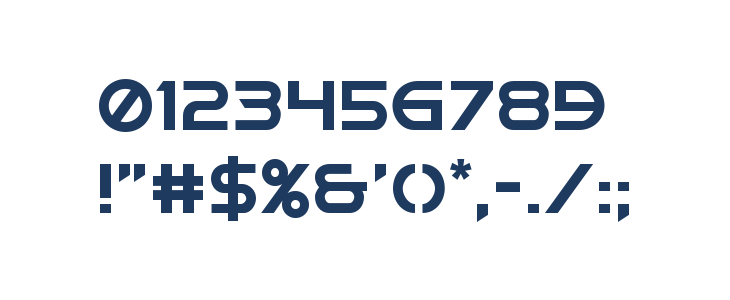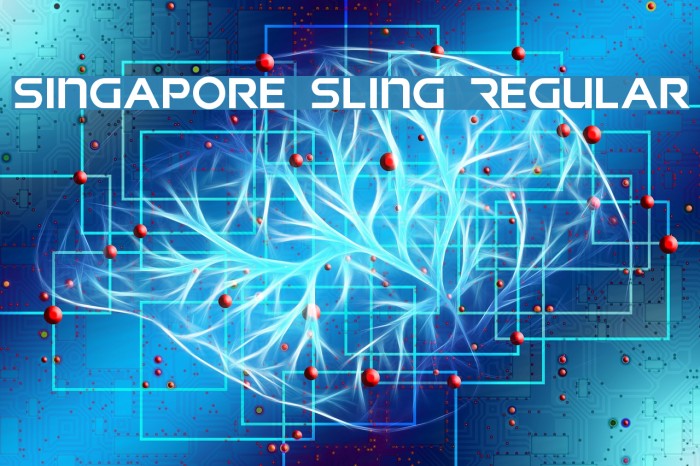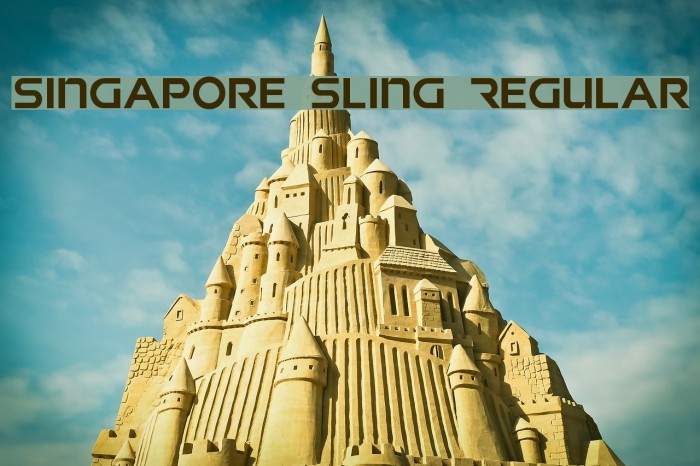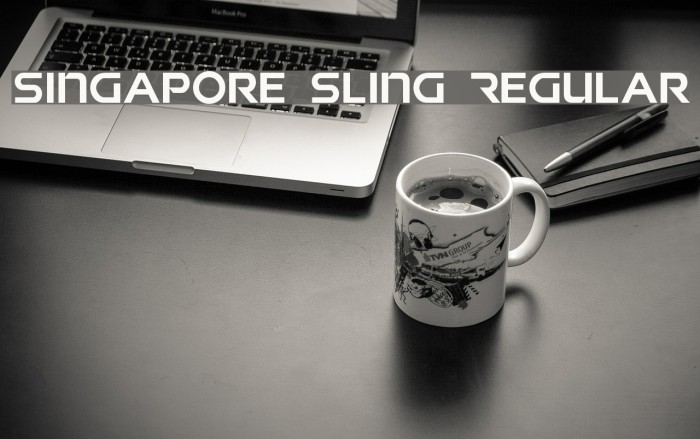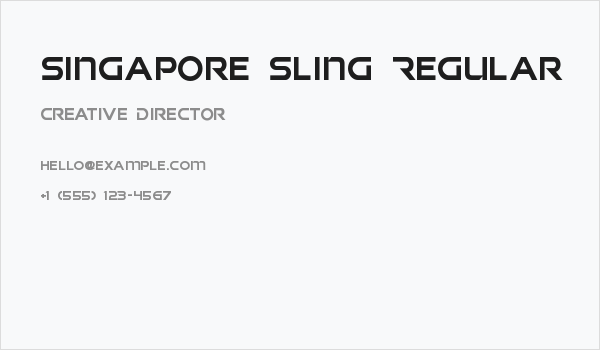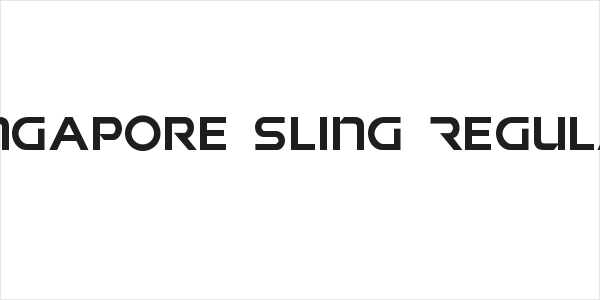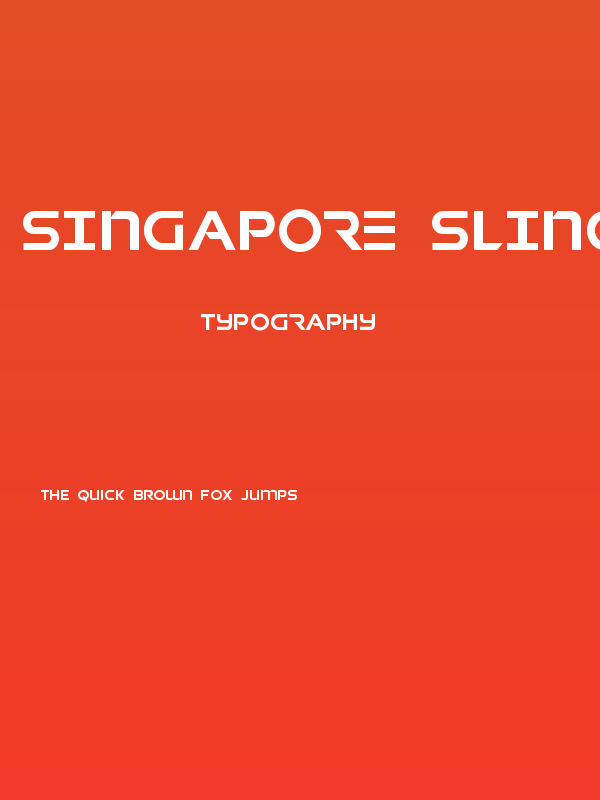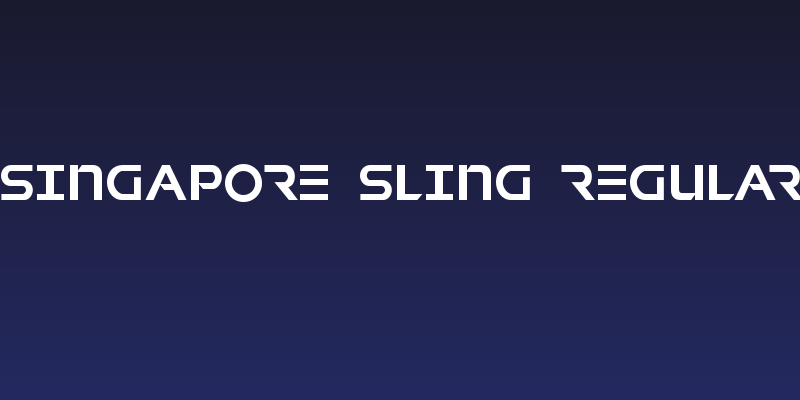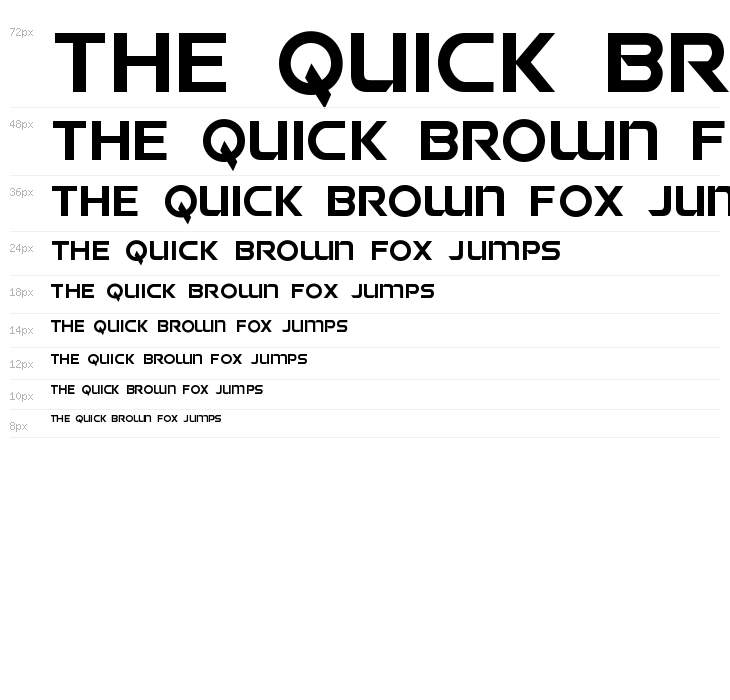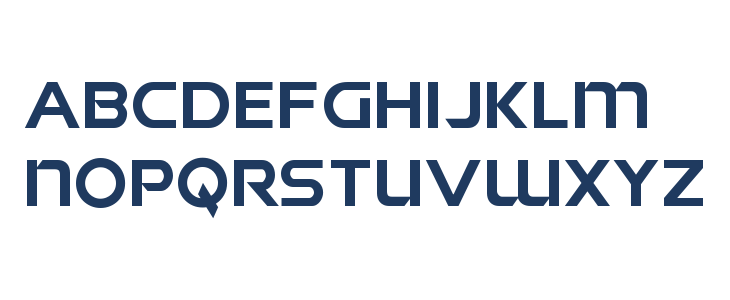
Singapore Sling Regular Font
Singapore Sling Regular Description
This font features a bold and geometric design with a futuristic flair. The characters are constructed with sharp angles and clean lines, giving it a modern and tech-inspired appearance. The uppercase and lowercase letters maintain a consistent style, with unique elements such as the cutouts in the 'Q' and 'R'. The numerals are equally bold, with a distinctive zero that includes a diagonal slash. Special characters are designed to match the overall aesthetic, making this font suitable for projects that require a strong visual impact.
Proposed ProjectsIdeal for technology branding, futuristic posters, video game titles, and sci-fi themed designs.